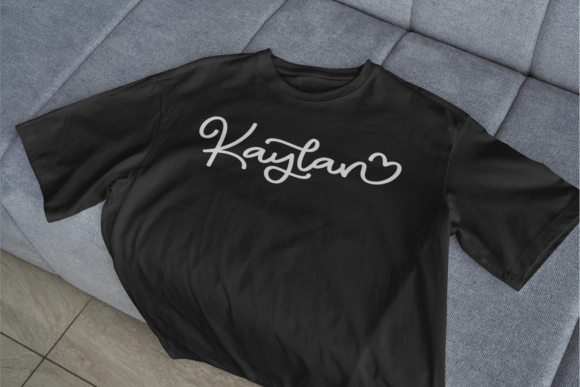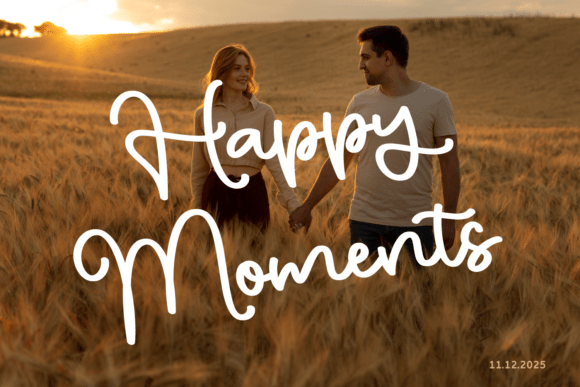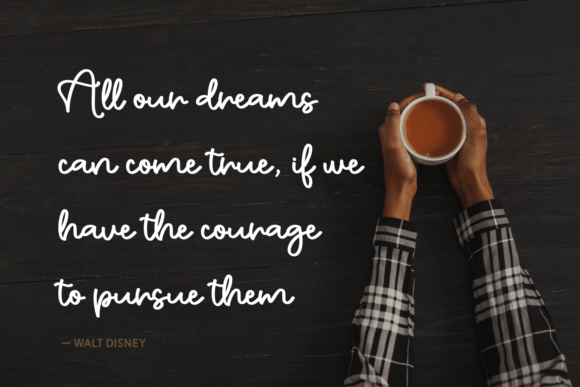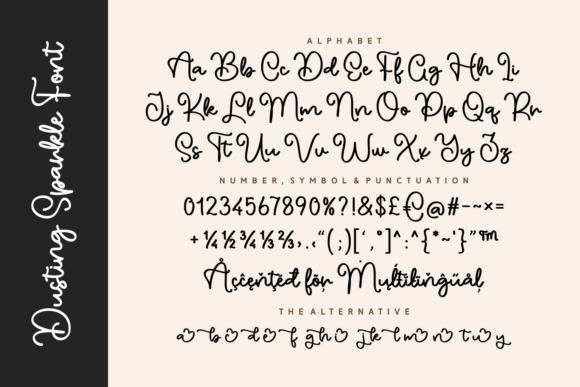
Dusting Sparkle Font: Add a Touch of Whimsy to Your Designs
Are you looking for a font that can add a dash of personality to your creative projects? Look no further than Dusting Sparkle, a playful calligraphy script font that’s full of charm and character. With its bold monoline strokes, whimsical swashes, and heart-shaped flourishes, Dusting Sparkle is the perfect choice for designers and crafters who want to create eye-catching and engaging designs.
The Characteristics of Dusting Sparkle Font
Dusting Sparkle is a unique and eye-catching font that’s characterized by its bold monoline strokes, whimsical swashes, and heart-shaped flourishes. The font has a casual, handwritten look that makes every word feel warm and personal. The bold strokes give the font a confident and playful feel, while the swashes and flourishes add a touch of elegance and sophistication.
Perfect for Crafts, Quotes, and Greeting Cards
Dusting Sparkle is perfect for a variety of design projects, including crafts, quotes, greeting cards, and kids’ designs. The font’s playful and whimsical feel makes it ideal for creating eye-catching and engaging designs that are sure to delight. Whether you’re creating a handmade card, a DIY craft, or a social media graphic, Dusting Sparkle is the perfect choice.
Adding a Dash of Sparkle to Your Brand Identity
Dusting Sparkle is not just limited to personal projects – it’s also perfect for brand identities that want to radiate joy and personality. The font’s bold and playful feel makes it ideal for creating logos, business cards, and other marketing materials that need to stand out. With Dusting Sparkle, you can add a touch of whimsy and personality to your brand identity and make it more relatable and engaging.
Key Features of Dusting Sparkle Font
- Bold monoline strokes: Give your designs a confident and playful feel with Dusting Sparkle’s bold monoline strokes.
- Whimsical swashes: Add a touch of elegance and sophistication to your designs with Dusting Sparkle’s whimsical swashes.
- Heart-shaped flourishes: Make your designs more engaging and eye-catching with Dusting Sparkle’s heart-shaped flourishes.
- Casual, handwritten look: Give your designs a warm and personal feel with Dusting Sparkle’s casual, handwritten look.
Tips for Using Dusting Sparkle Font
Here are a few tips for using Dusting Sparkle font in your designs:
- Use it for headlines and titles: Dusting Sparkle is perfect for headlines and titles, where its bold and playful feel can really shine.
- Mix it with other fonts: Dusting Sparkle pairs well with other fonts, so don’t be afraid to mix it with some of your favorite fonts to create a unique look.
- Experiment with colors and textures: Dusting Sparkle looks great in a variety of colors and textures, so don’t be afraid to experiment and find the perfect combination for your design.
Dusting Sparkle is a playful calligraphy script font that’s perfect for designers and crafters who want to add a dash of personality to their creative projects. With its bold monoline strokes, whimsical swashes, and heart-shaped flourishes, Dusting Sparkle is sure to delight. Whether you’re creating crafts, quotes, greeting cards, or brand identities, Dusting Sparkle is the perfect choice. So why not give it a try and see how it can add a touch of sparkle to your designs?